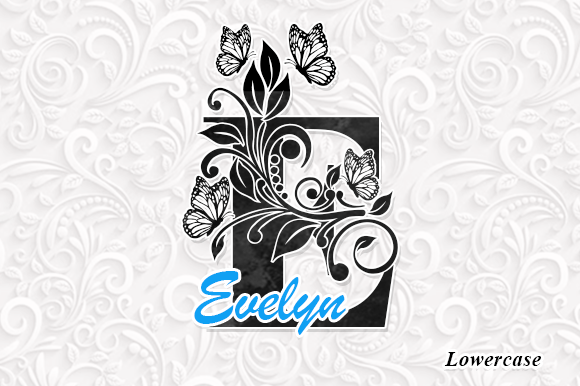
Clarissa Monogram Font
Introducing the Clarissa Monogram font, a captivating fusion of whimsical charm and refined sophistication. This distinctive typographic brush adds a valuable stroke to your creative canvas, enhancing every design with an air of elegant authenticity. With Clarissa Monogram, each word you craft is redefined as an artistic masterpiece. It’s ideal for sculpting the elegance of wedding invitations or for adding a unique flourish to creative stationery. Wave its enchanting wand over your social media posts, mesmerizing followers with its unique allure. Sprinkle its magic dust on greeting cards, transforming heartfelt sentiments into striking spectacles more than a mere font. Clarissa Monogram is truly an artistic tool that sends ripples of enchantment across your design landscape.